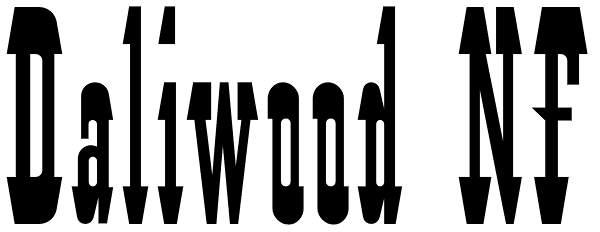
Daliwood NF
This quirky charmer is based on a typeface called "Les Catalanes", designed in 1952 by Enric Crous-Vidal for Fonderie Typographique Française. Appropriately, it is named for the king of quirky Cataláns.